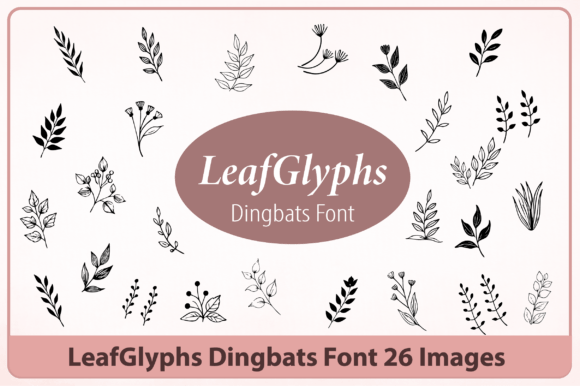
Introduction to Leafglyphs Font Font
Fonts play a crucial role in design, and the Leafglyphs Font font is a typeface that brings both character and versatility to any project. Whether you’re working on a branding project, a website, or a print design, the Leafglyphs Font font offers a unique style that can elevate your work.
LeafGlyphs: Because letters are overratedβwhy not communicate entirely in stylish little leaves.
A whimsical dingbat font packed with botanical doodles, perfect for adding a touch of nature to your designs No watering required.
Key Features of Leafglyphs Font Font
Why Choose Leafglyphs Font Font?
The Leafglyphs Font font is more than just a typeface β it’s a design tool that helps you communicate your message with style and clarity. Its unique character set and versatile design make it suitable for a wide range of applications, from elegant invitations to bold headlines.
With its carefully crafted letterforms and balanced proportions, the Leafglyphs Font font ensures readability and visual appeal across all mediums.
What makes Leafglyphs Font font special?
The Leafglyphs Font font stands out with its unique design, exceptional readability, and versatility across various design applications.